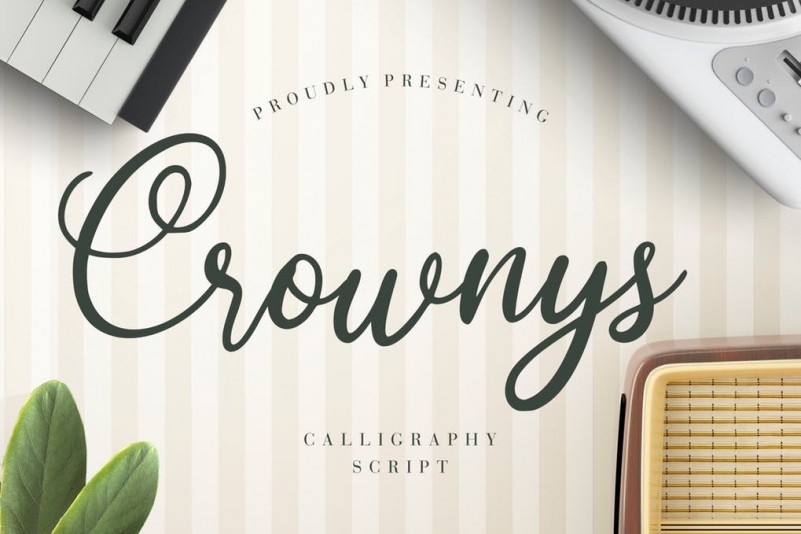
Crownys Font
Crownys is calligraphy script typeface looks elegant and classy.
Crownys is perfect for branding projects, logo, wedding designs, social media posts, advertisements, product packaging, product designs, label, photography, watermark, invitation, stationery and any projects that need handwriting taste.